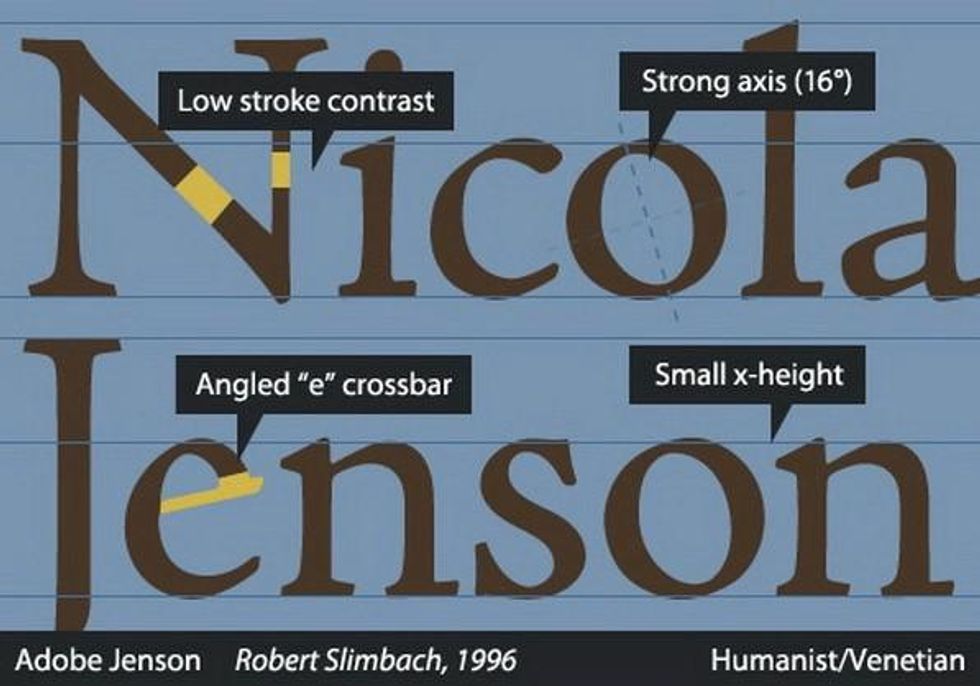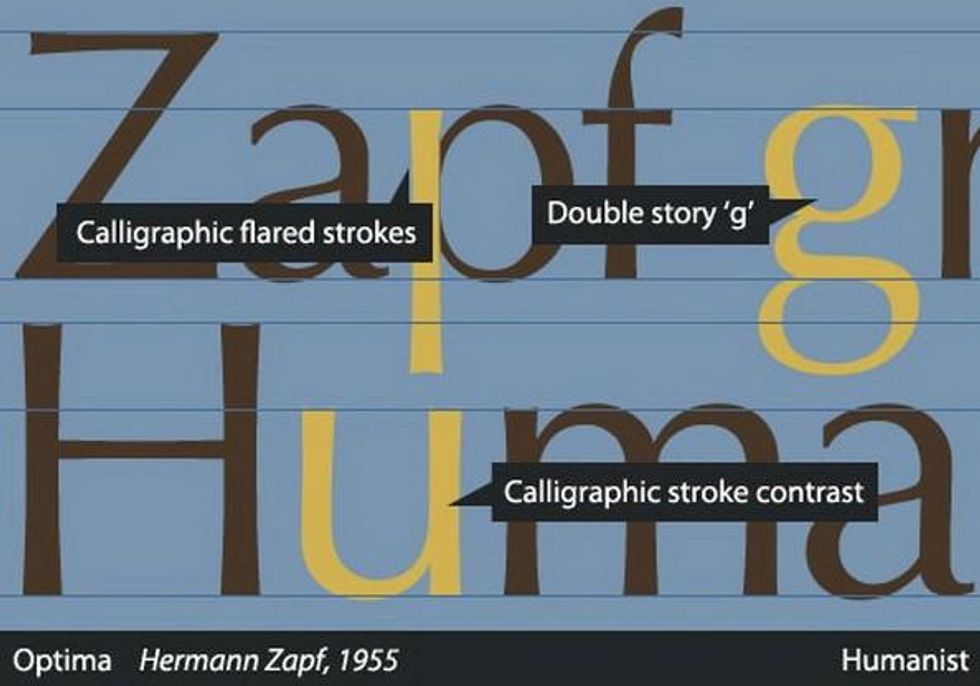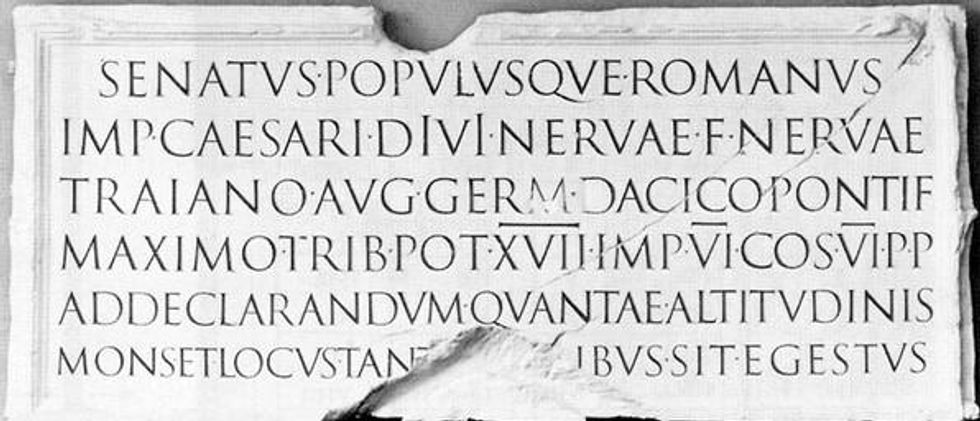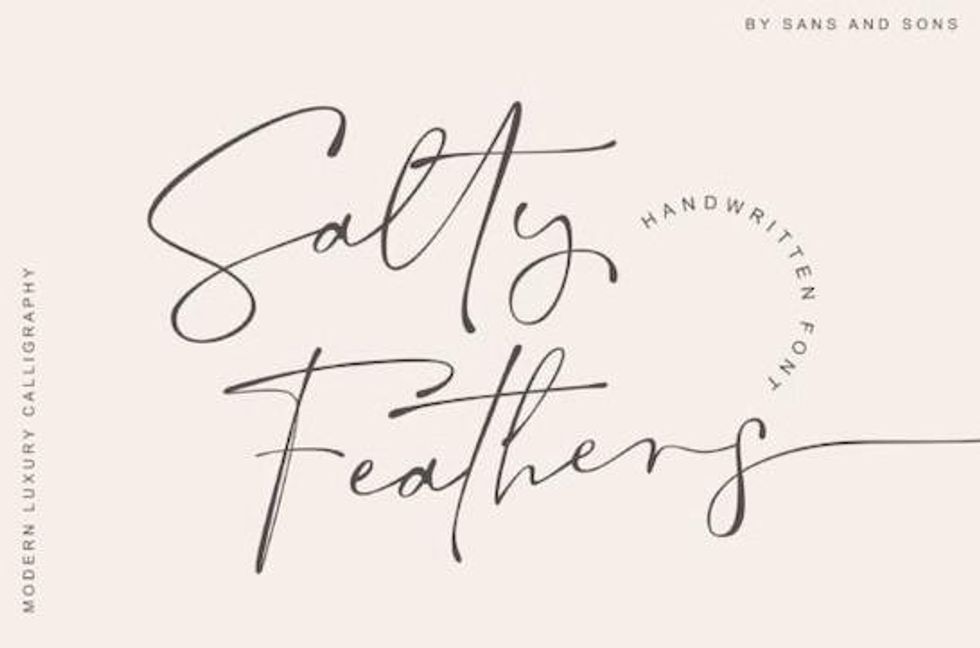
Some typical and most popular typefaces today
In fact, at present, there is no standard to give a truly complete classification of different types of typefaces.
However, the most official typeface classification system today is Vox-AtypI. In 2010 at a conference held in Dublin, Vox-AtypI had a slight change to include the Gaelic line and the Calligraphics classification.
Currently, the Vox-AtypI system offers a total of 11 typefaces in general, and they will be divided into main categories such as Non-Latin, Calligraphics, Moderns, Classicals, Retro, etc. Some popular typefaces are:
1. Serif
Serif typefaces are recognized quite easily and simply. It is almost very familiar to most computer users. The main and most prominent feature of a Serif font is that it has a footer. Some basic Serif styles are Humanist, Old-Style, Transitional, Didone (Modern), Slab Serif.
2. Sans Serif (Lineal)
Another familiar style that may be quite familiar to you is Sans Serif. With definitive and clear lines of geometric shapes. Some variations of Sans Serif such as Humanist Sans Serif, Transitional Sans Serif, Geometric.
3. Glyphic
This typeface was born from the inspiration of sculptures on metal surfaces. The most prominent feature of this typeface is that it is based mainly on capital letters, some of the popular typefaces of this font are Friz Quadrata, Trajan, Albertus, and so on.
4. Script
Script is a completely different style from the line design trends of the above typefaces. It is crafted from the inspiration of handwritten forms with soft brush or pens with different density. It can be the curvaceous and undulating calligraphic typefaces of the characters, or the serenity of natural signatures, even the scribbled handwriting style, for example, Rae Dunn font, Scribble font, etc.
5. Blackletter
Next is the Blackletter typeface, with a very classic, classic and retro look. This Blackletter typeface is now also used a lot in traditional designs. The design style of the lines of this font is taken from the extremely refined handwriting of the knowledgeable people of the medieval period. The feature of this font is that it has fairly wide, straight lines. If you take a closer look at the Blackletter typeface, we can see that it can be called with other names that are Gothic, or Old-English. Some fonts that stand out in this design style are Cansetras, Alter Bridge, Cambridge, We The People font, and much more.
6. Decorative
Unlike Sans-serif and even Serif fonts that can often be used to display in different types of text, Decorative gives you many decorative properties that can even be a bit difficult to read, precisely because However, it can be a bit picky about designs and uses, as it is mainly for decoration. Some very famous font sets such as: Critter, Stencil, GiddyUp, Jokerman, LoveLetters, Rosewood, etc